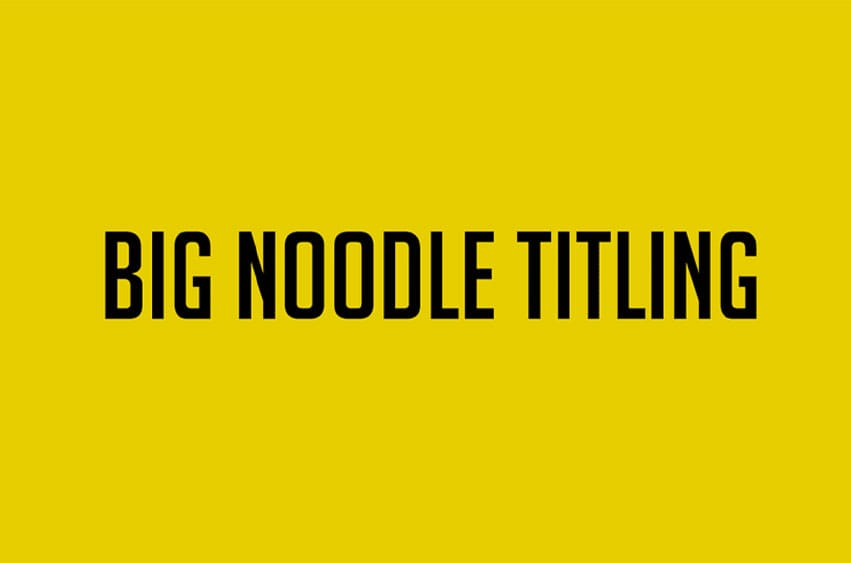
Big Noodle Titling Font is a modern sans serif with 3 fonts! Big Noodle Titling was designed on a generic set of capitals built from the gothic even width principle, made out of squared forms, simple terminations: the result is excellent legibility in any medium. What makes Big Noodle unique is its basic appearance and extreme practicality.
Patterned after innumerably-many squared grotesks and linears, but manufactured with a distinctly contemporary treatment, a robust and reliable typeface that works for the user, not for itself. This basic font comes with a companion oblique font plus a block shadow oblique font. One weight fits all.